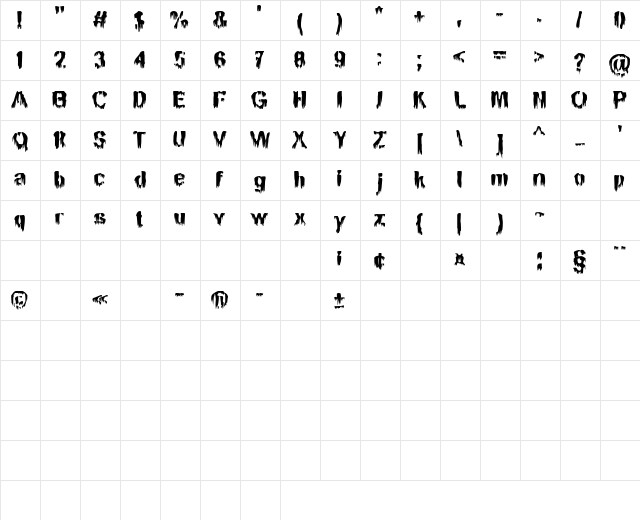
BN Manson Nights Regular
Design Context for BN Manson Nights Typeface
BN Manson Nights is a composed and adaptable typeface that performs quietly and consistently across a wide range of design contexts.